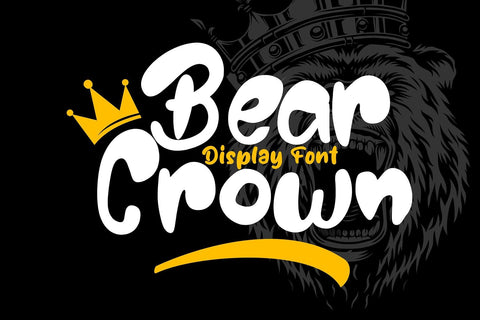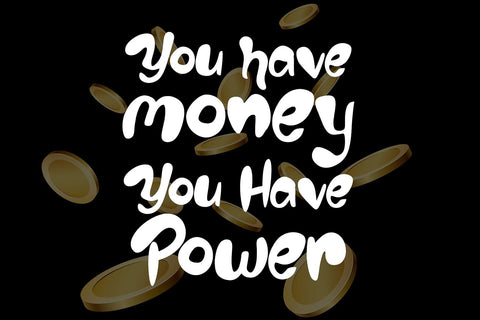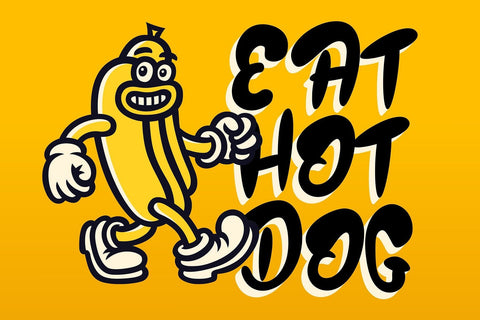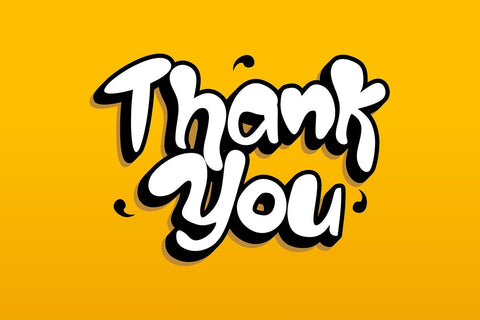
Bear Crown - Display Font
Bear Crown is a delightful and playful display font that brings a touch of whimsy to your design projects. With its charming, hand-drawn style and bear-inspired motifs, this font is perfect for adding a dash of fun to posters, invitations, and children's books. Whether you're crafting a cute logo or a standout headline, Bear Crown's unique character will make your text pop and captivate your audience. Get ready to wear the Bear Crown and embrace the wild side of typography!